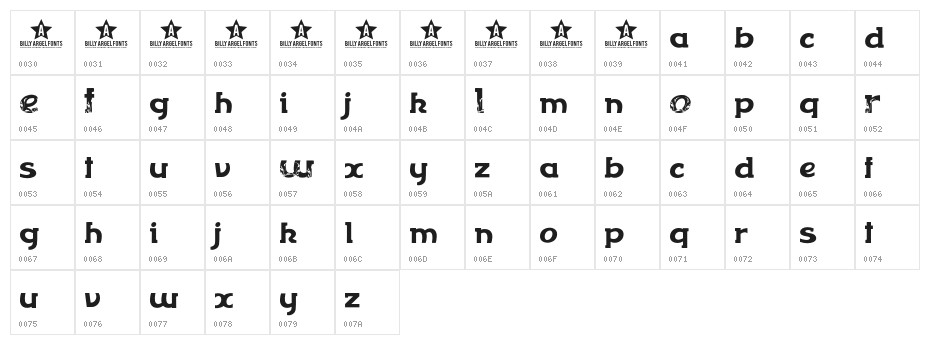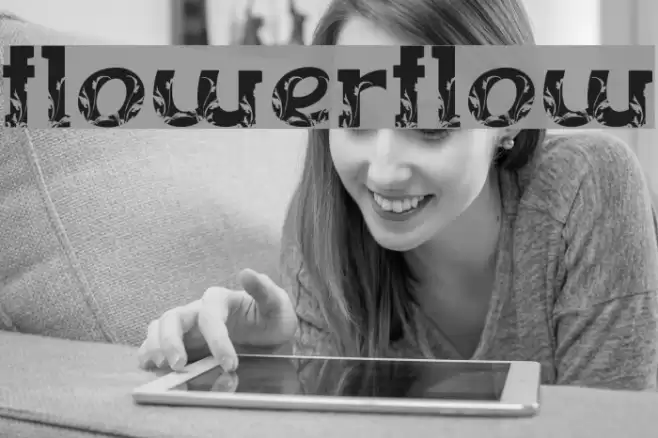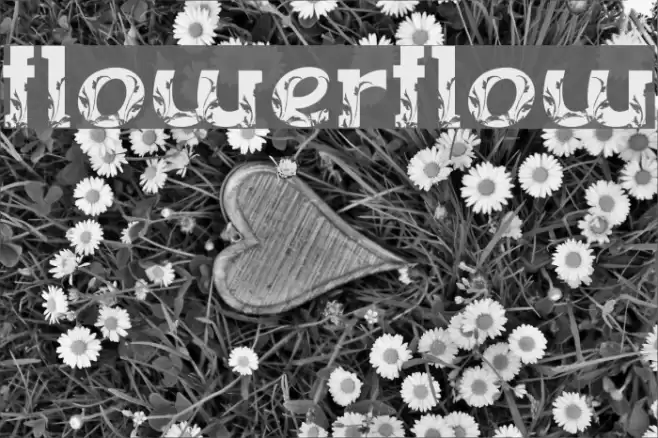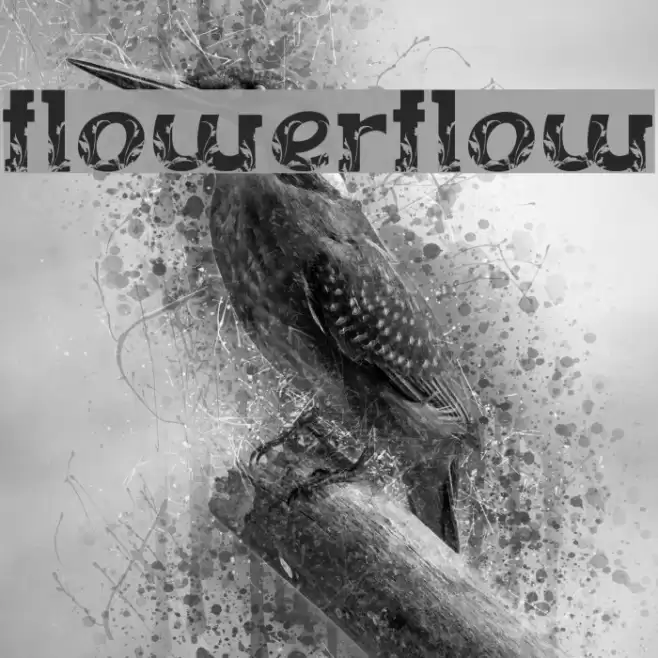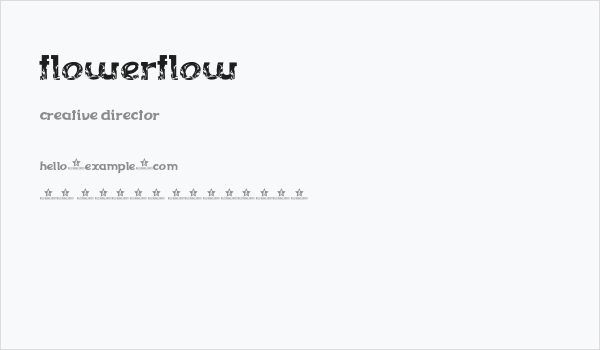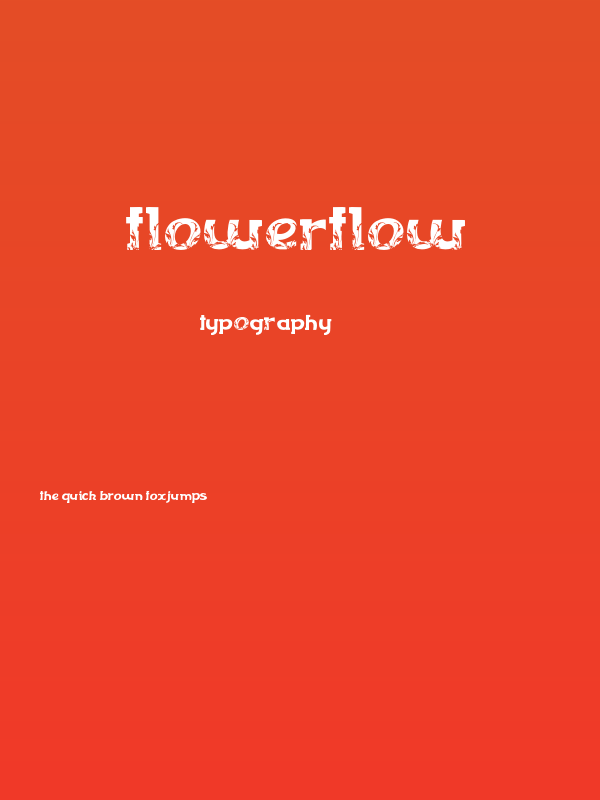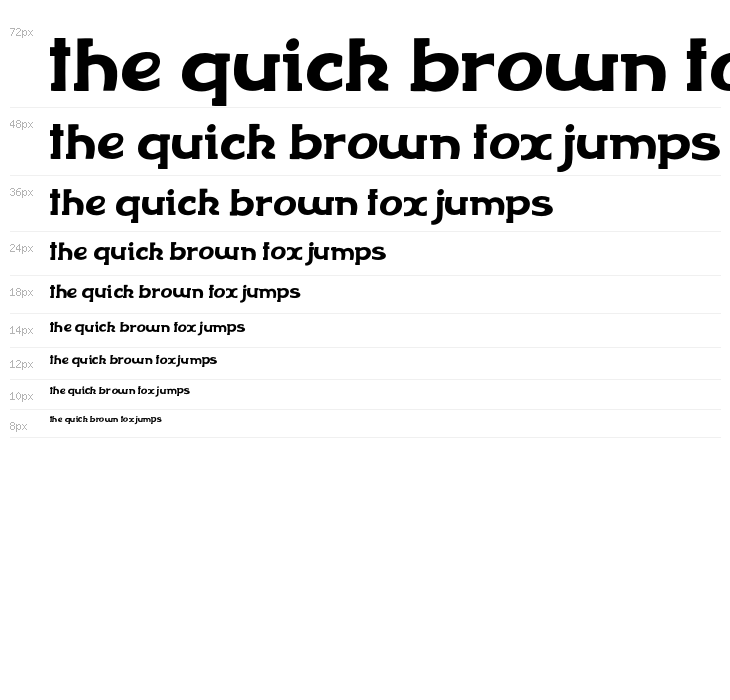
FLOWERFLOW Font
This font features a playful and decorative style with floral elements integrated into the letterforms. The lowercase letters have a whimsical appearance, with certain characters displaying intricate floral patterns that add a unique touch. The overall design is bold and eye-catching, making it suitable for creative projects that require a distinctive and artistic flair. The font maintains a consistent weight throughout, ensuring readability while still offering a decorative appeal. Its artistic nature makes it ideal for projects that aim to capture attention and convey a sense of creativity and fun.
A playful, decorative font with floral elements and bold, artistic letterforms.
- Proposed Projects: Ideal for greeting cards, invitations, posters, and branding materials that require a creative and artistic touch.
- Use Case: Logos, Headlines, Creative projects